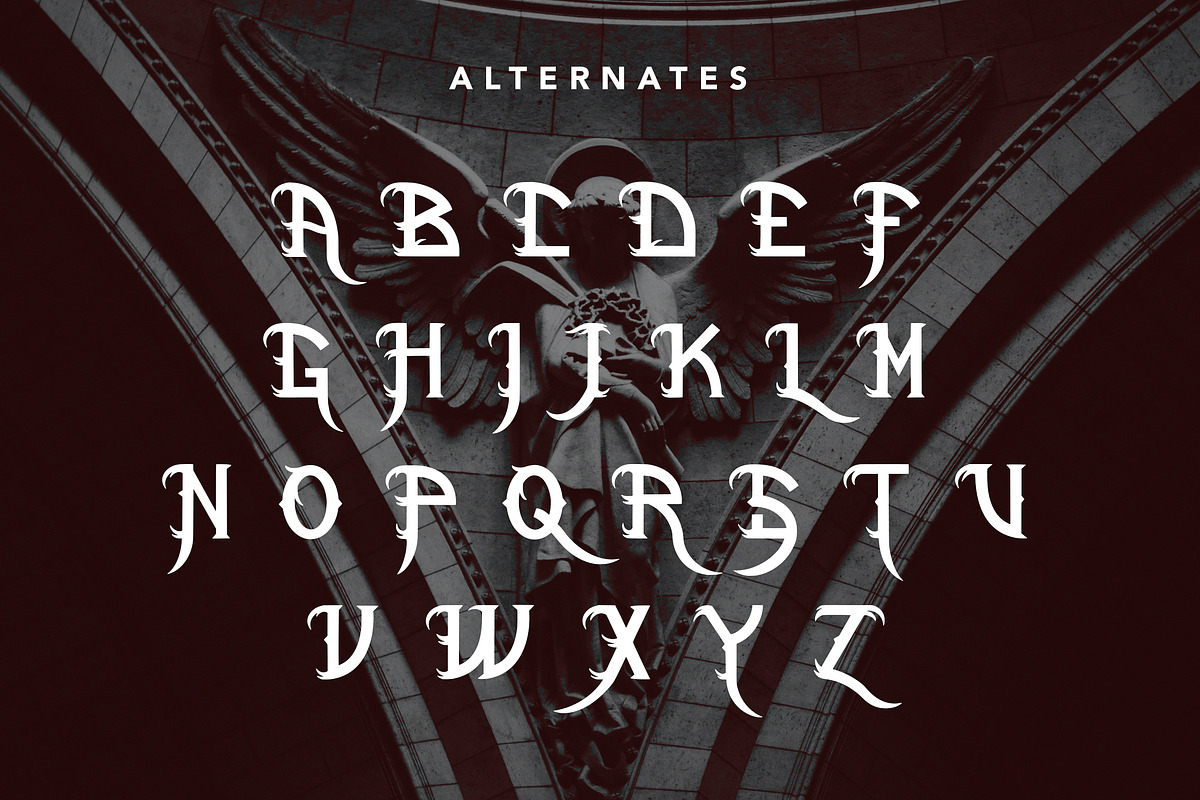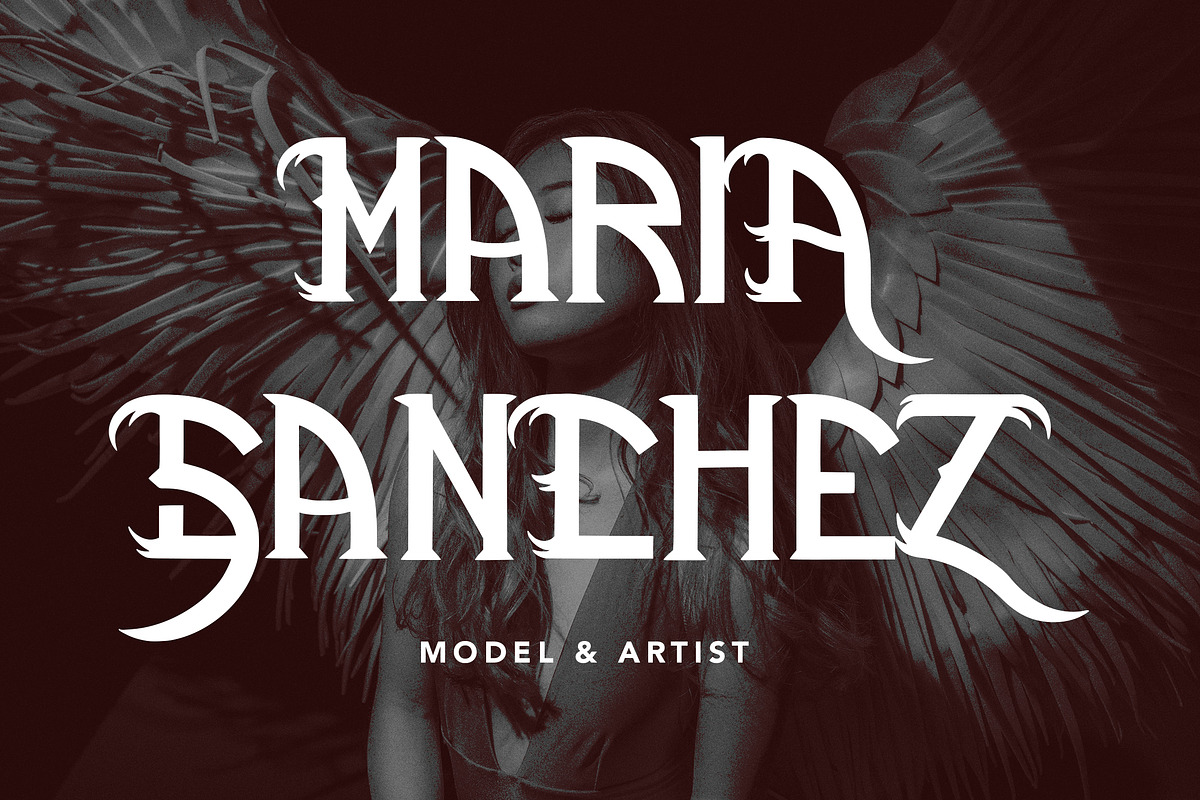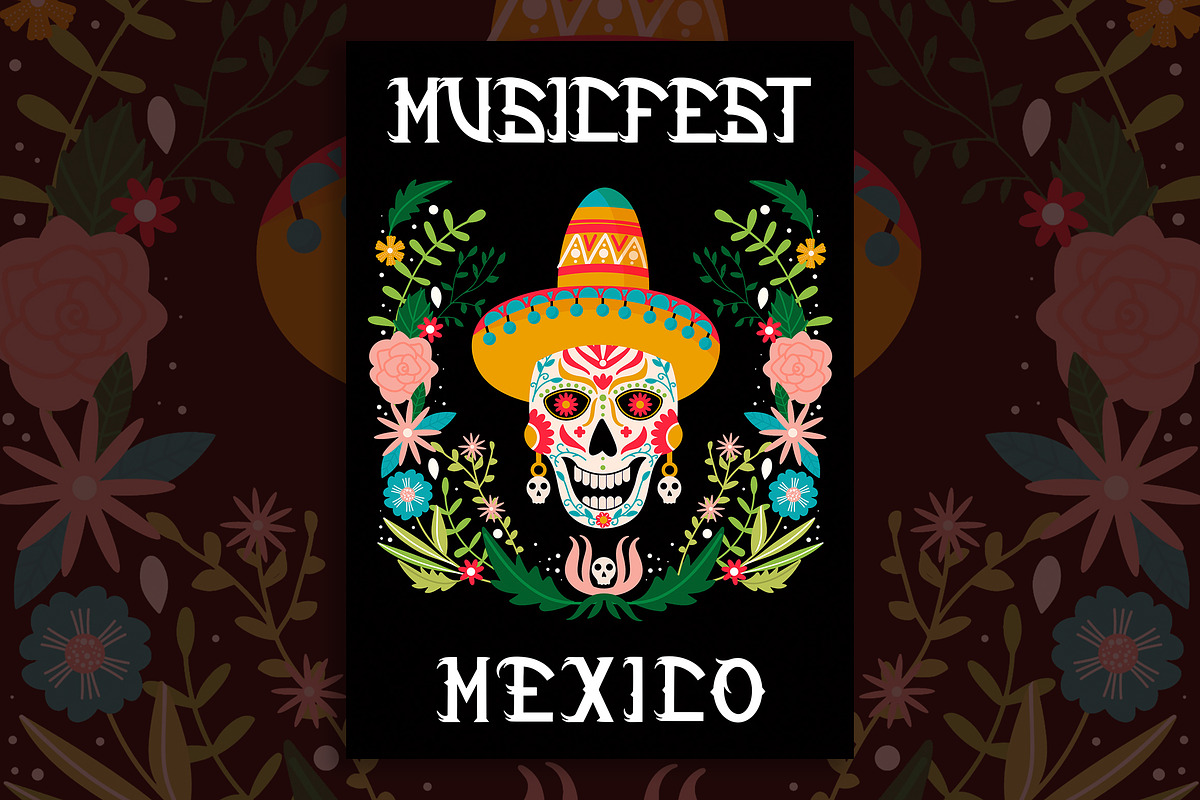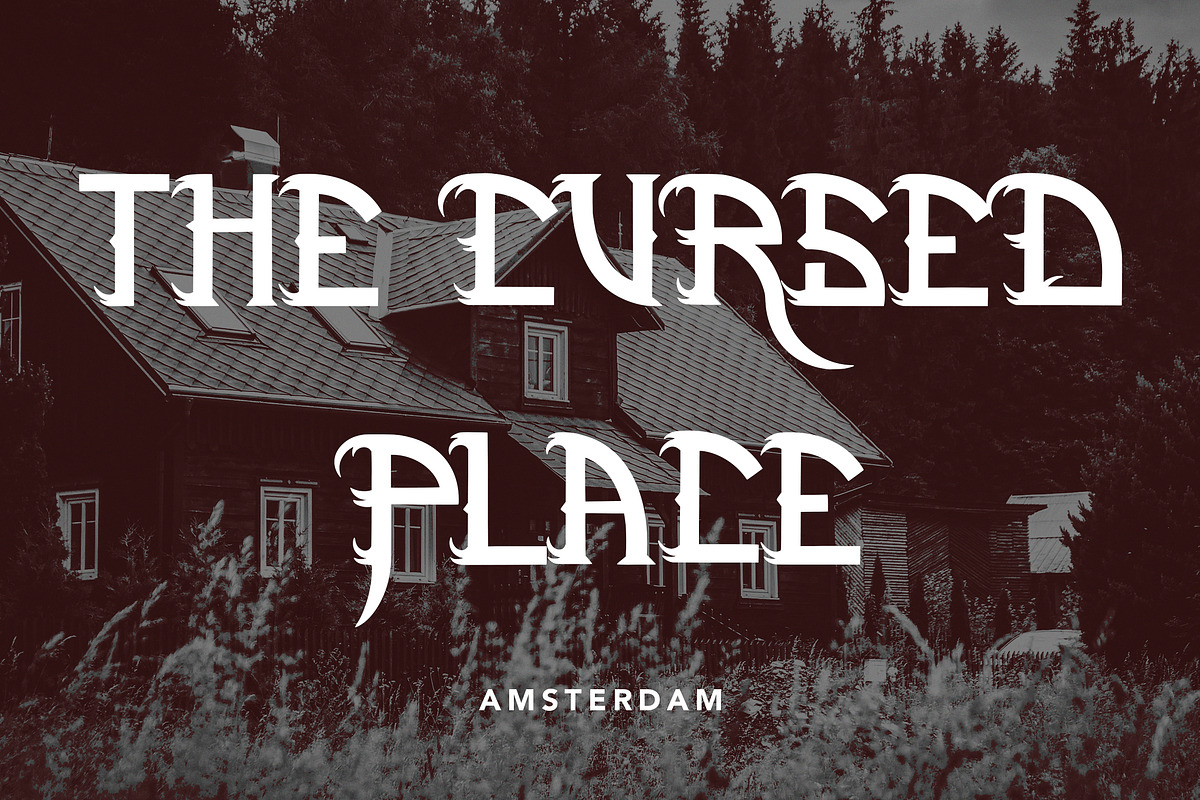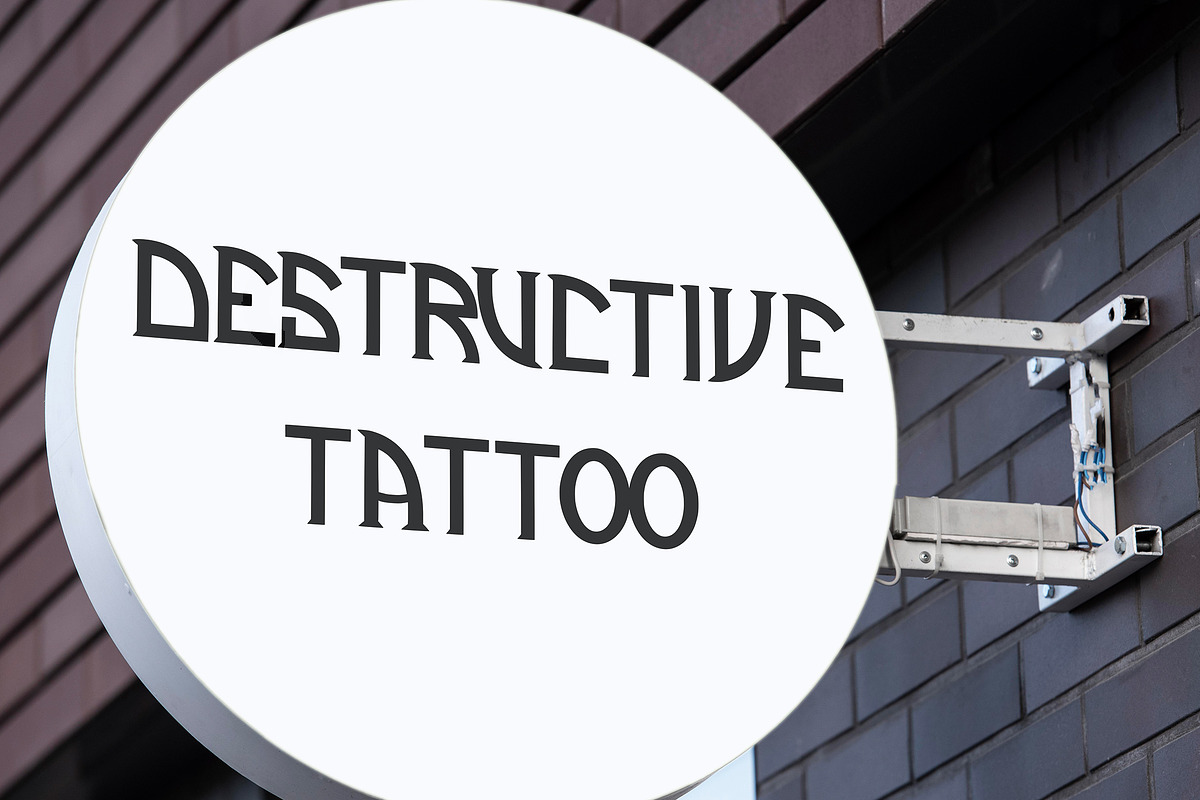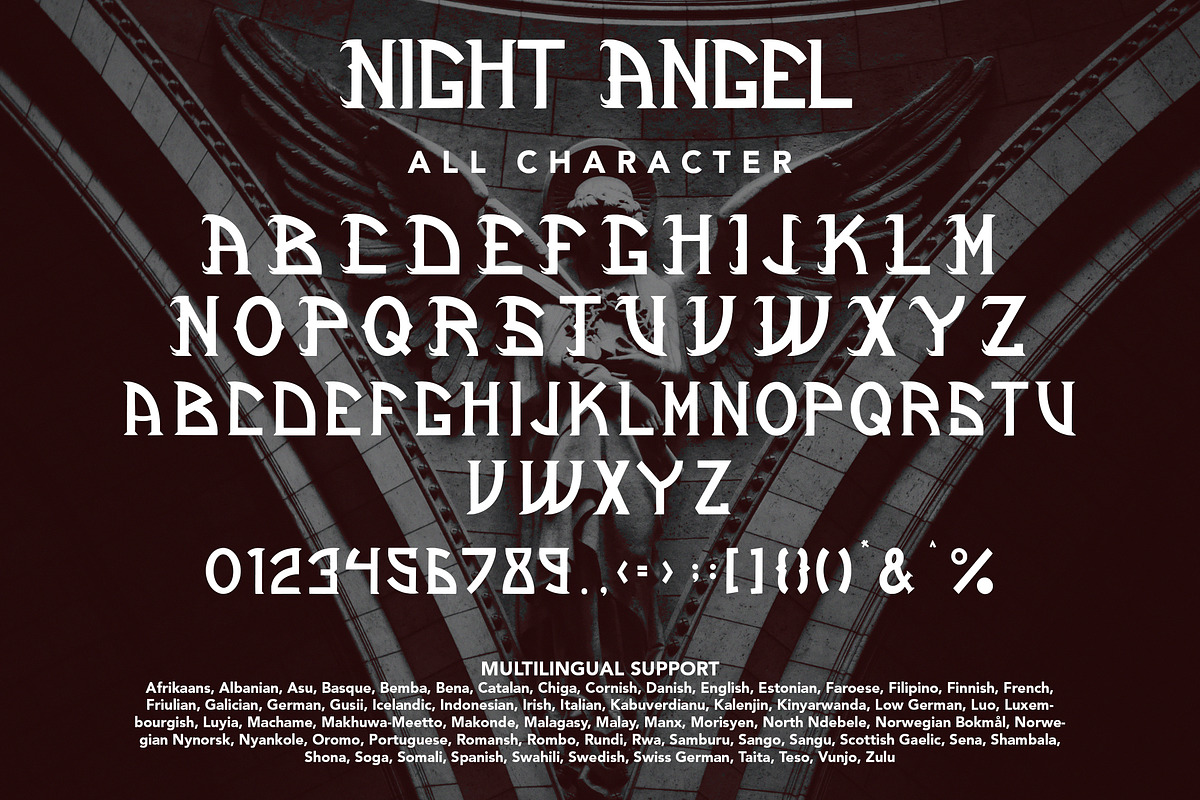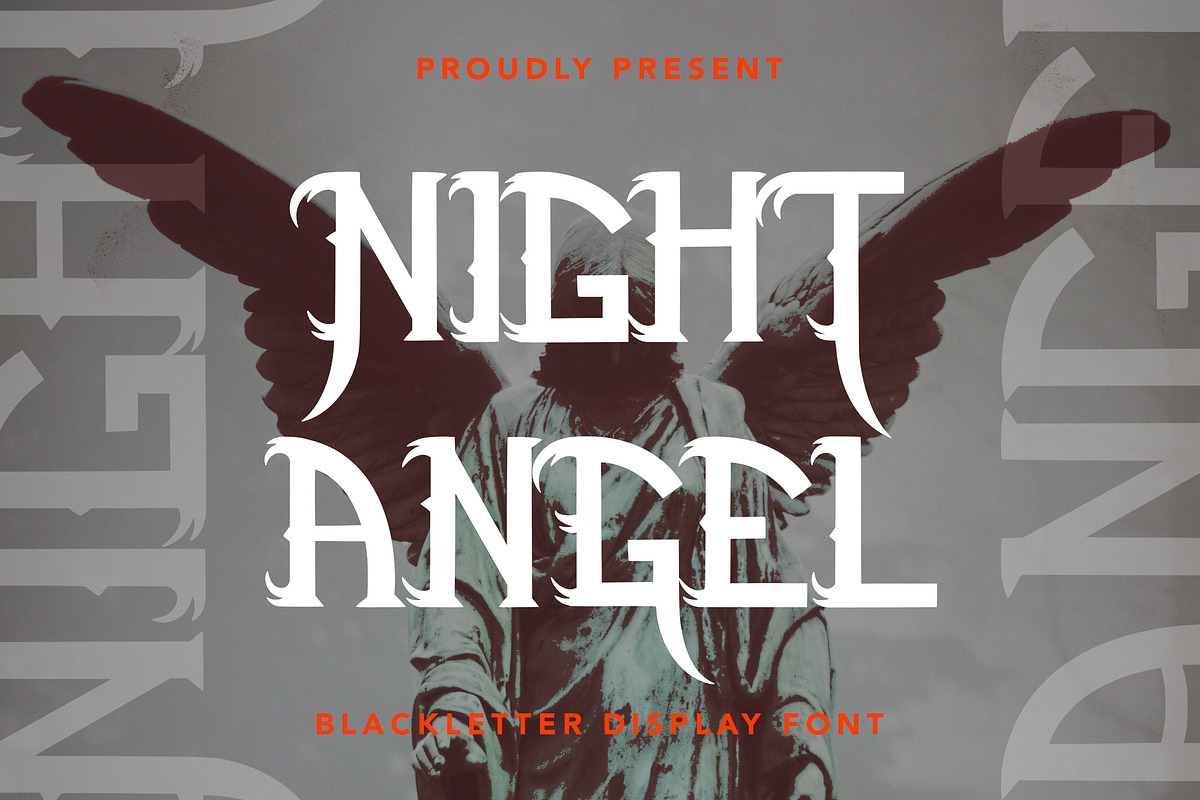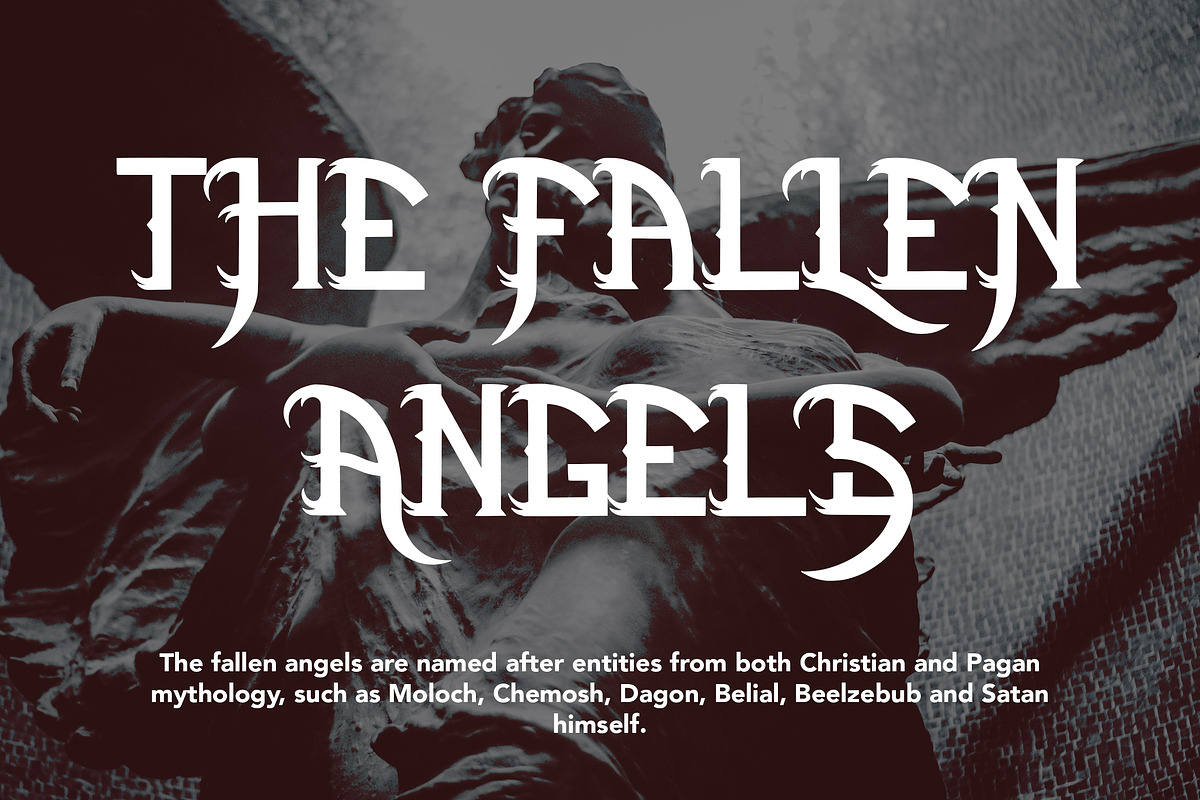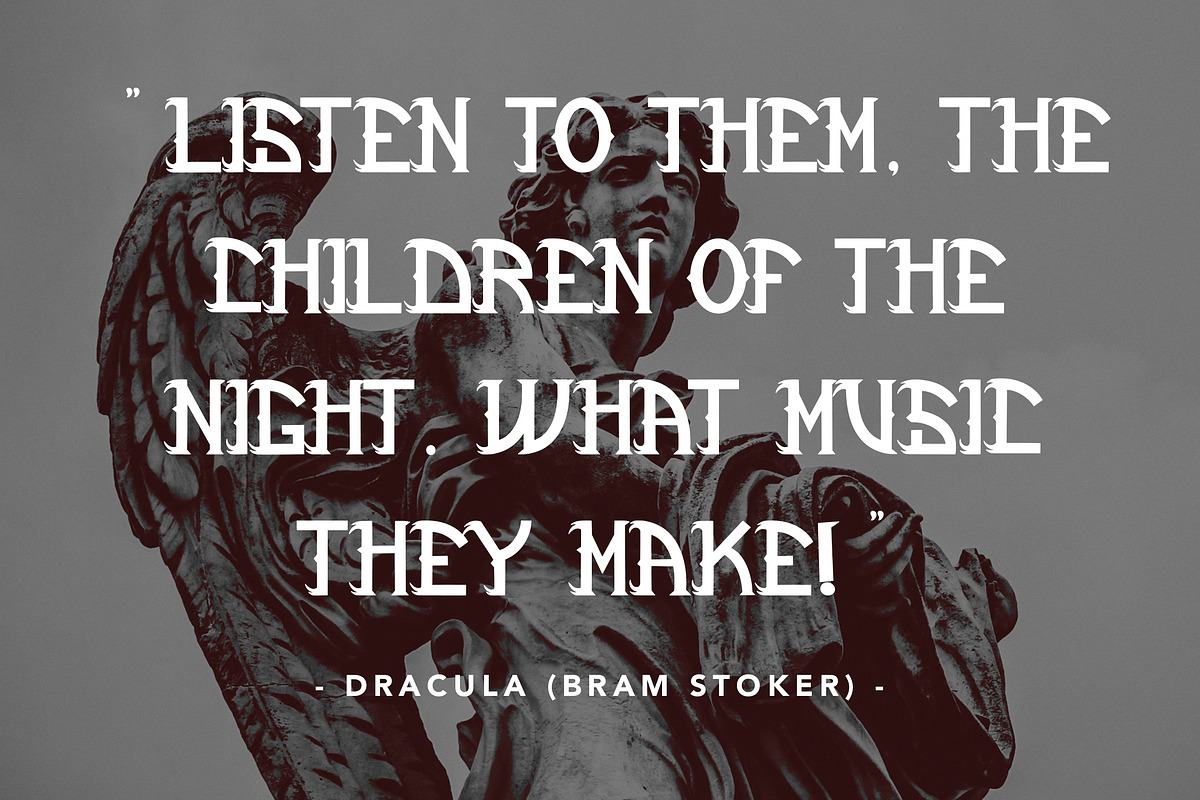
NightAngel -Blackletter Display Font
NightAngel - Blackletter Display Font contains a lowercase, uppercase, symbol, and also supports multi-language. There’s a lot of ligature in this font. NightAngel - Blackletter Display Font also comes with ligatures, stylistic alternates and many more. this font suitable for fashion, branding, catalog and other design that you want.